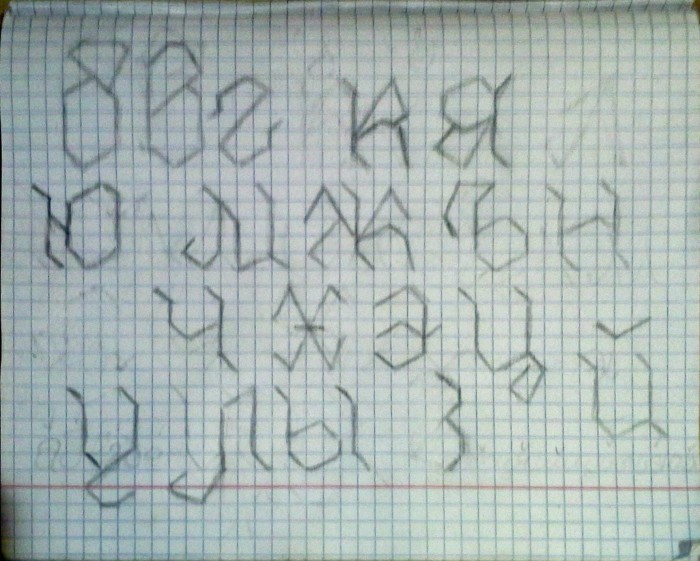
• A no-contrast light fraktur typeface. Still a work in progress.
I've found a solution: a double-storey a. Thank you for your suggestion though Aeolien.
Tha do you think about adding Cyrillic? Maybe my sketches will help with this.
This is a great project, and I hope you've got the inspiration to finish it. Your effort to keep the traditional letterforms didn't go unnoticed.
@Sychoff: Great sketches.
Nice, but the x looks a bit illegible.